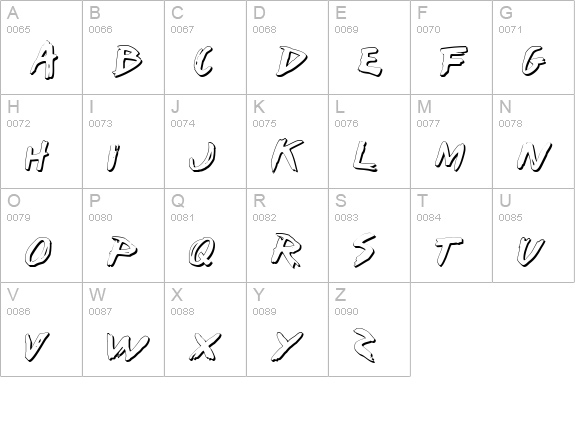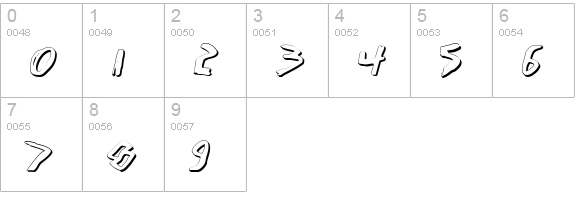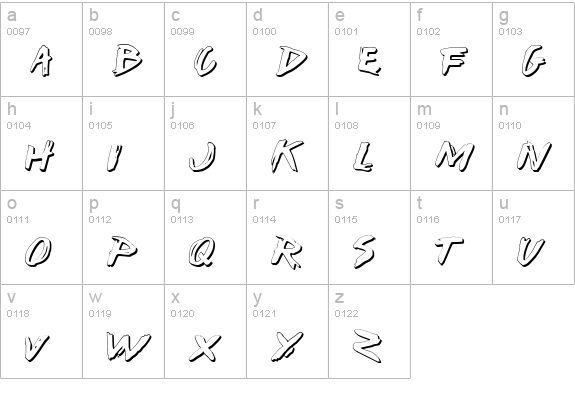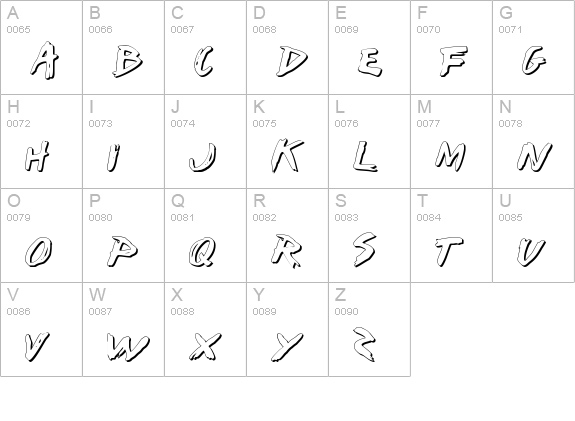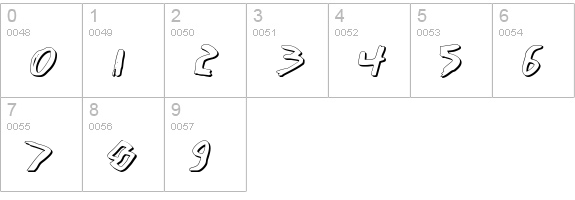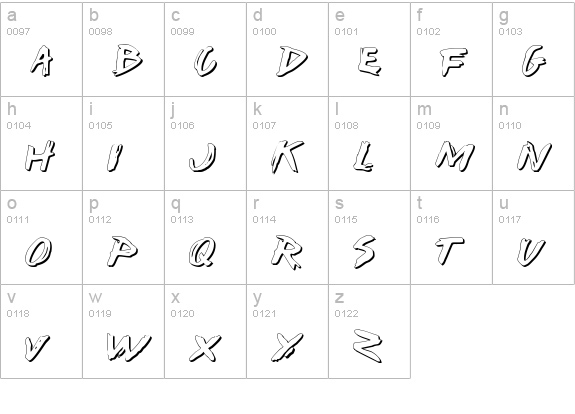
I Want My TTR! Shadow Font Details
Introducing the captivating and enigmatic I Want My TTR! Shadow font, a typeface that exudes an aura of mystery and intrigue. With its unique and striking shadow effect, this font will instantly grab attention and add a touch of intrigue to any design project. The I Want My TTR! Shadow font is meticulously crafted, with each letter carefully designed to create a seamless and visually stunning composition. The shadow effect adds depth and dimension, casting an alluring spell on anyone who lays eyes on it. Whether it's for a poster, logo, or website, this font is guaranteed to leave a lasting impression. What sets the I Want My TTR! Shadow font apart is not only its captivating design but also its accessibility. It is freely available to download at FontsMarket.com, making it easily accessible to designers, artists, and enthusiasts alike. This means that you can take advantage of this extraordinary font without any cost or hassle. With its elegant yet edgy aesthetic, the I Want My TTR! Shadow font is perfect for a wide range of design projects. Its versatility allows it to be used in various contexts, from branding and advertising to social media graphics and typography art. The possibilities are endless, and your creativity knows no bounds with this remarkable font. So why wait? Download the I Want My TTR! Shadow font today from FontsMarket.com and unlock a world of creative possibilities. Let this font be your secret weapon that will elevate your designs to new heights. Get ready to captivate your audience and make a lasting impression with this free, mesmerizing font.